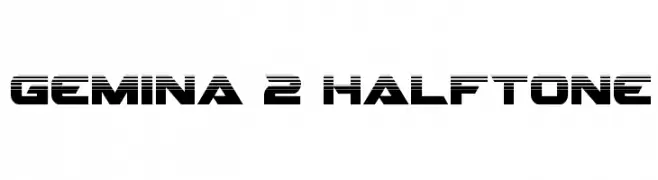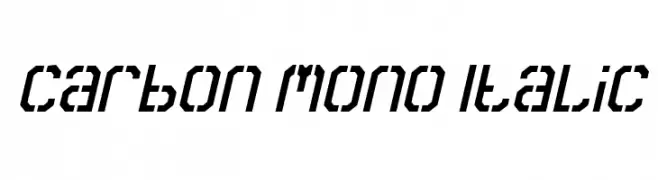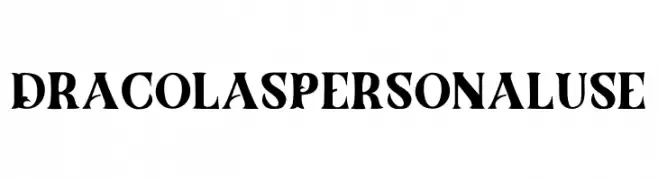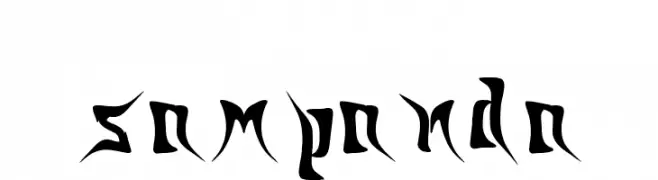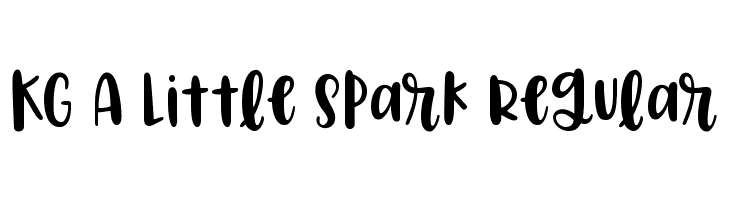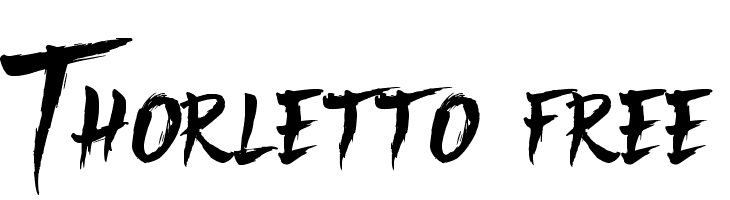
A bold, hand-drawn font with a vintage and rustic charm.
A bold, distressed font with a grunge, vintage style and textured appearance.
A bold, futuristic font with a halftone effect and geometric shapes.
A modern, monospaced italic font with a technical and futuristic style.
A bold, 3D outlined font with a futuristic and dynamic style.
A bold, italic font with a modern, angular design and a futuristic feel.
A bold, gothic-inspired font with sharp serifs and dramatic flair.
A flowing script font with elegant, cursive strokes and a classic calligraphic style.